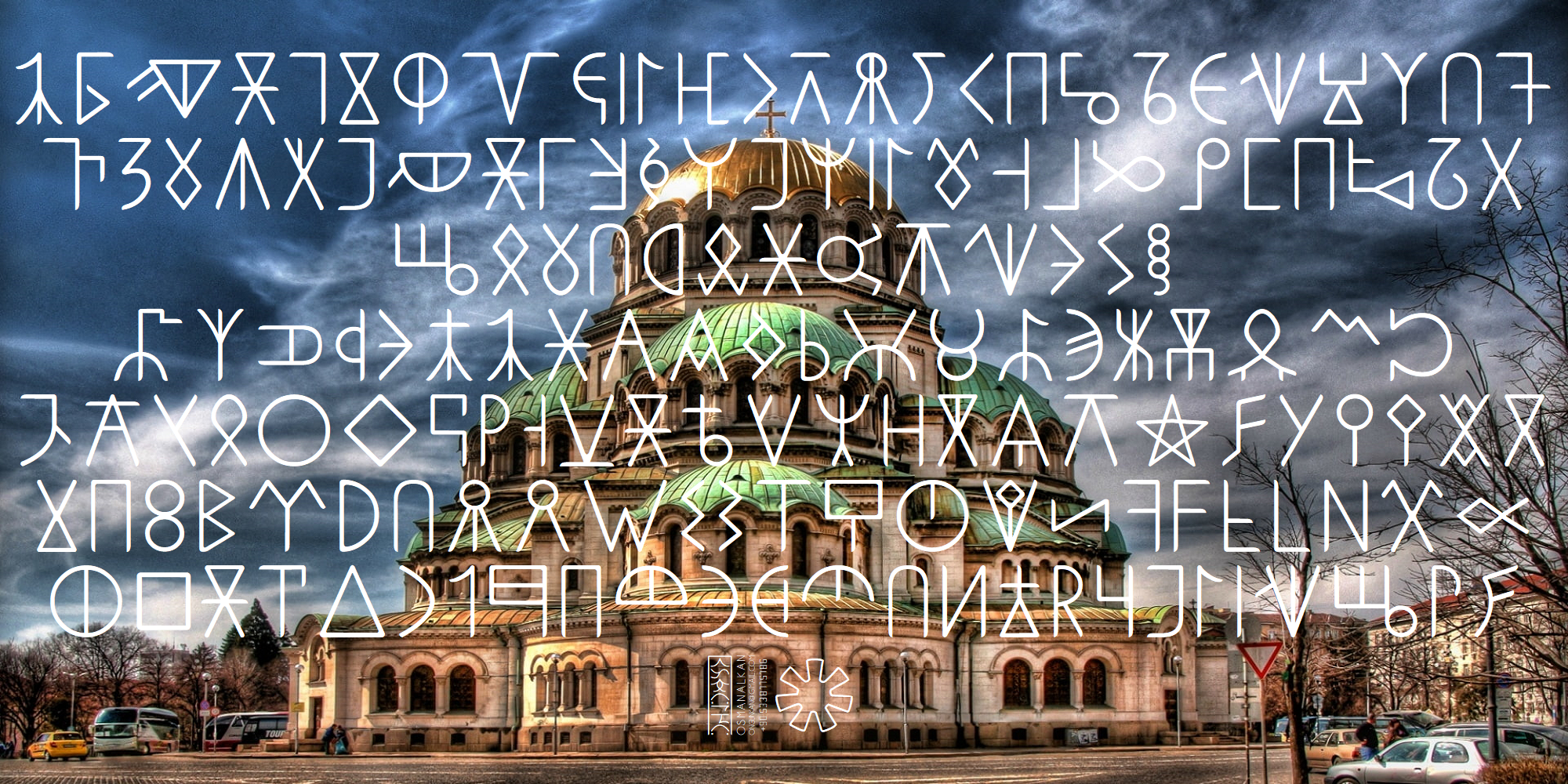
Ongunkan Proto Bulgarian Runic Font is perfect for historical research documentation, archaeological publications, medieval studies materials, ancient language textbooks, cultural heritage presentations, museum exhibition displays, academic linguistics papers, historical fiction book covers, ancient civilization documentaries, and educational materials where authentic runic script representation supports scholarly research and cultural preservation.
What makes Ongunkan Proto Bulgarian Runic Font exciting is its meticulous recreation of authentic Proto-Bulgarian runic characters that preserves the historical accuracy and cultural significance of this ancient writing system. This font features carefully researched letterforms based on archaeological evidence, stone inscriptions, and historical manuscripts that provide scholars and educators with genuine access to this important Slavic cultural heritage. The authentic character shapes and traditional proportions make it ideal for academic applications requiring historical precision and cultural authenticity.
Ongunkan Proto Bulgarian Runic Font family includes Regular weight with comprehensive runic character coverage, historical variants, and academic notation symbols necessary for scholarly research and educational applications. The family also features transliteration aids, comparative charts, and reference materials that enhance the font's educational value. Each element maintains historical accuracy while providing modern accessibility for contemporary research and teaching purposes.
The Ongunkan Proto Bulgarian Runic Font Free Download offers researchers, educators, and cultural enthusiasts access to typography that bridges ancient heritage with modern scholarship. This font's scholarly approach makes it exceptional for academic publications, historical documentation, and cultural preservation projects where authenticity and educational value are paramount. Its versatility extends to digital humanities projects, online cultural resources, and contemporary educational platforms requiring accurate historical representation.
Ongunkan Proto Bulgarian Runic Font supports extensive runic character sets including rare symbols, variant forms, and specialized notation necessary for comprehensive linguistic and archaeological research. The font's carefully designed metrics ensure proper spacing and alignment for academic text presentation while maintaining the authentic character that defines historical runic writing systems. Its scalability maintains clarity and historical accuracy from detailed research notes to large museum display applications.
The font's scholarly presence makes it particularly effective for academic conferences, cultural exhibitions, and educational materials where historical authenticity and research credibility are essential for meaningful cultural transmission. Whether designing archaeological reports, historical linguistics studies, or cultural heritage presentations, Ongunkan Proto Bulgarian Runic Font delivers authentic runic typography that honors ancient traditions while serving contemporary scholarly and educational communities effectively.